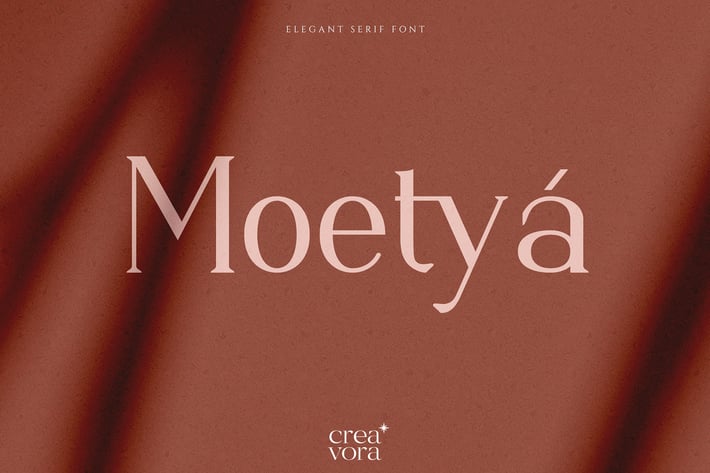
Moetya - Elegant Serif Font
Moetya - Elegant Serif Font.
Moetya is a modern serif font that is elegant and feminine with contrasting thick and thin lines. This font is suitable to be applied to beauty magazine logos, beauty, and fashion product logos, writing for creator content, titles on layouts, and other luxurious things.